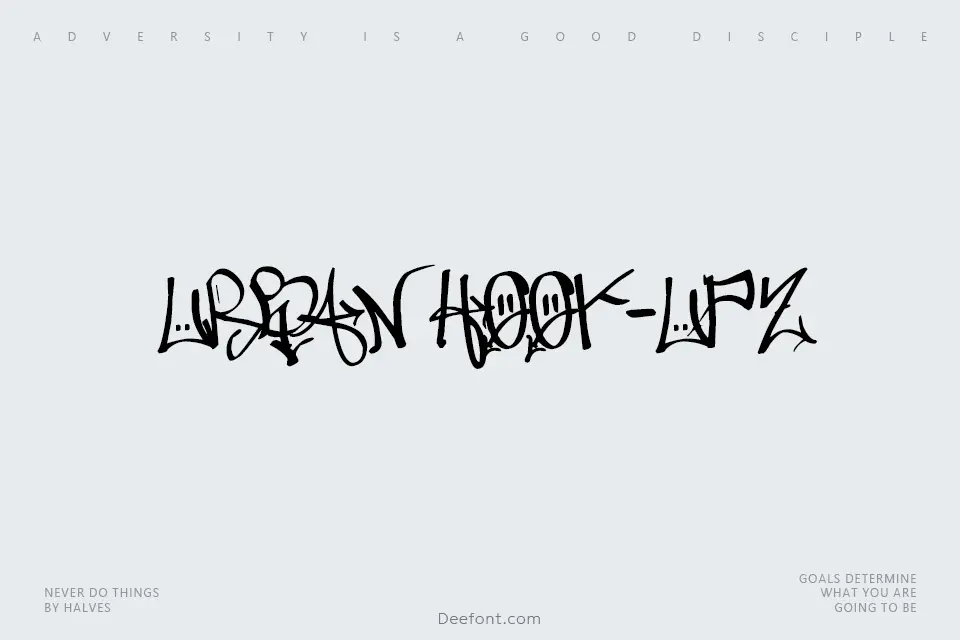
Urban Hook-Upz Font
Urban Hook-Upz is a striking graffiti-inspired script font designed by Anwar Ibrahim that embodies urban energy and authentic street culture aesthetics. Featuring bold, angular letterforms with dynamic execution, this font delivers a raw, unpolished style perfect for streetwear branding, music album covers, poster designs, and contemporary urban projects. Its distinctive character shapes and gritty, handcrafted aesthetic make it an exceptional choice for designers seeking to communicate edgy, powerful expression through typography.